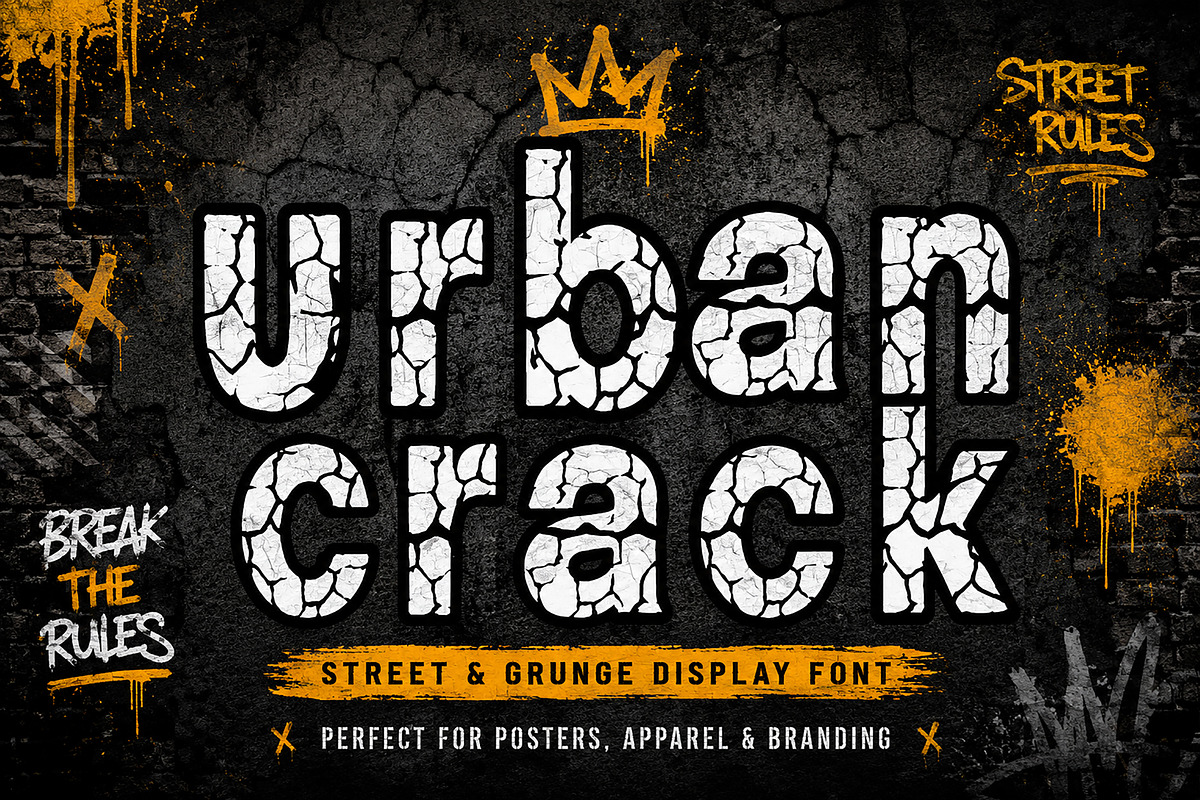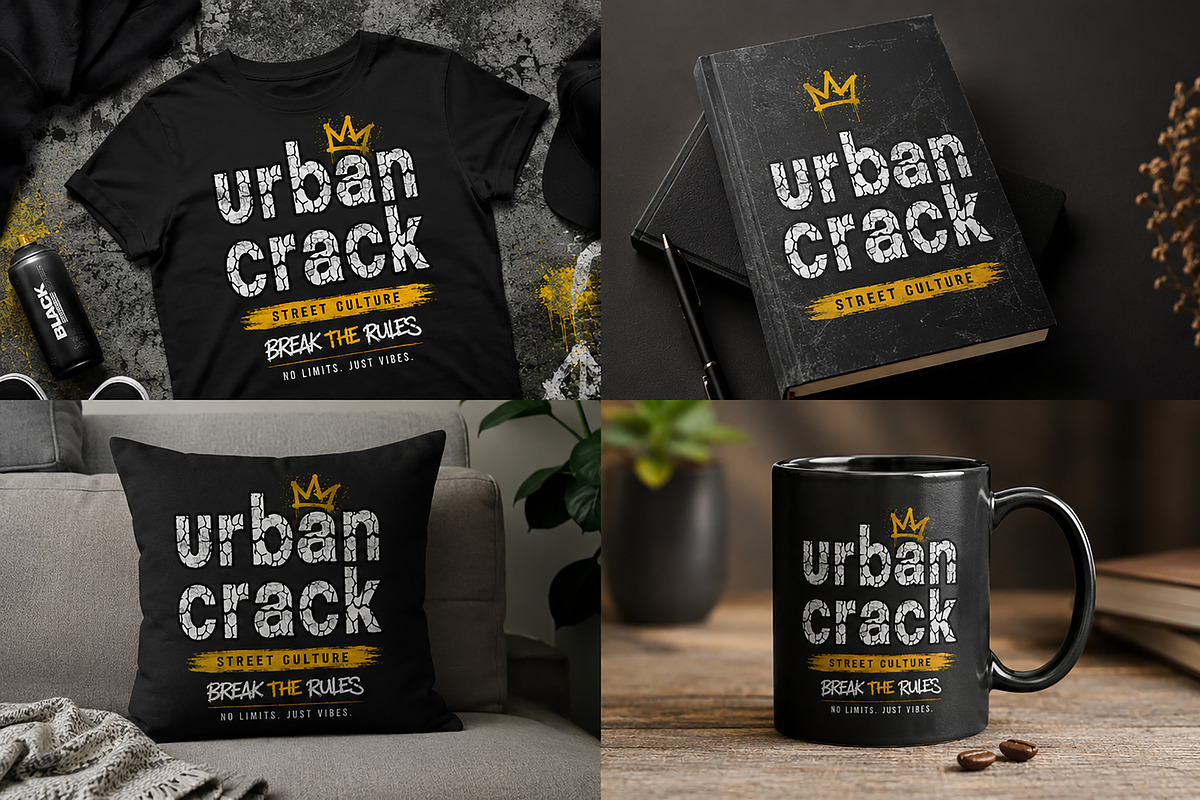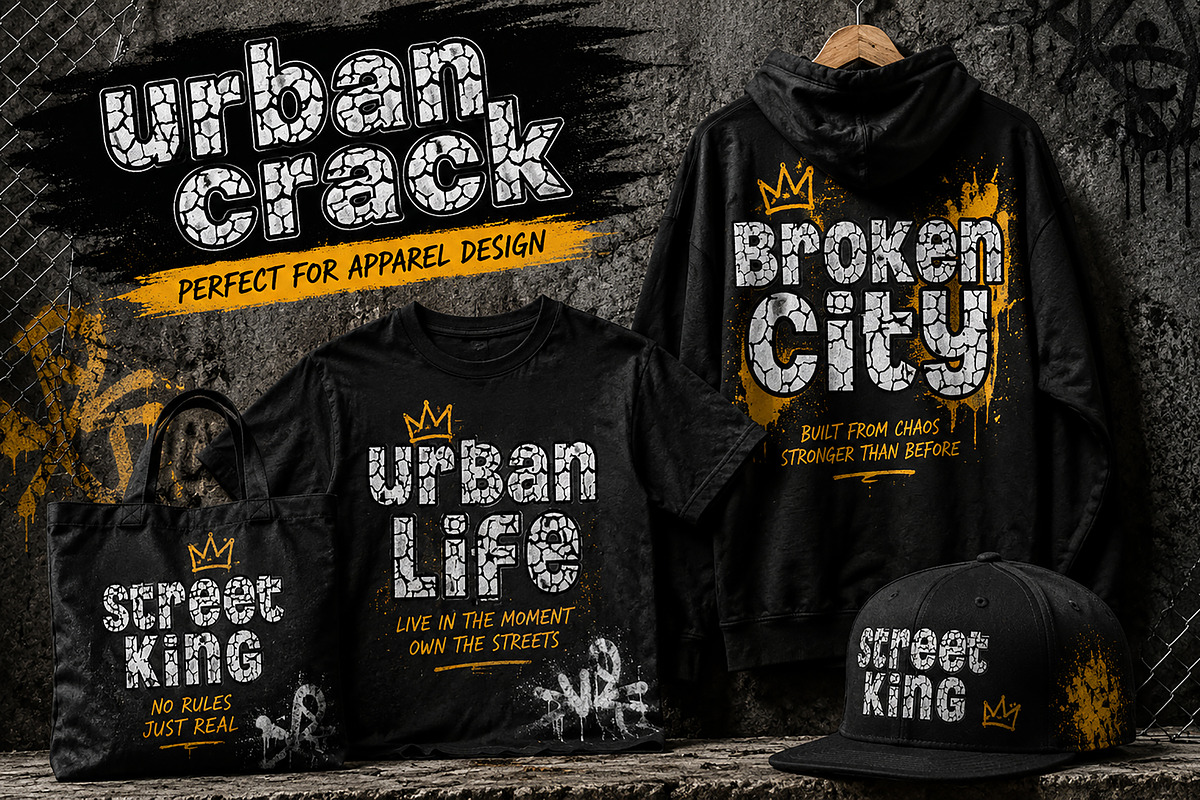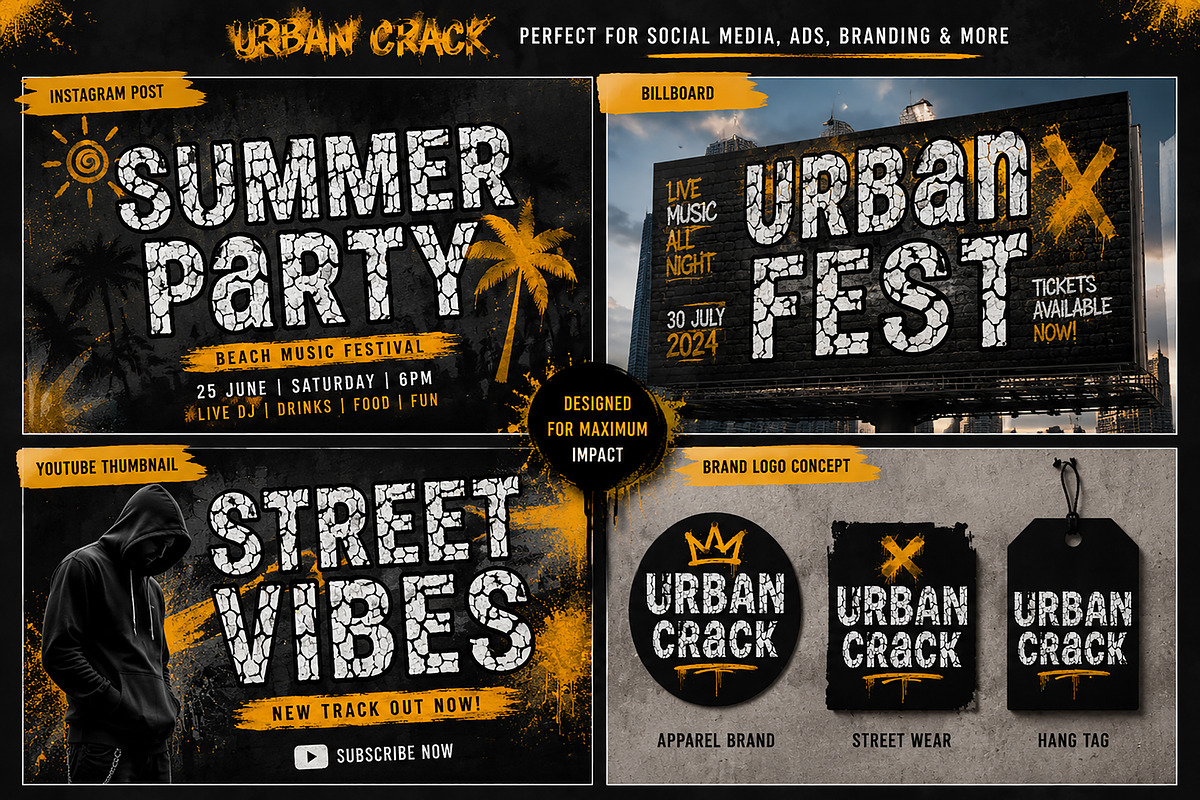
Urban Crack
Urban Crack – Street & Grunge Display Font
URBAN CRACK is a bold street-inspired display font featuring a unique cracked texture that brings raw urban energy to every design. Designed for creators who want to make a strong visual statement, this font combines grunge aesthetics, distressed details, and modern street culture into one powerful typeface.
Whether you're creating posters, apparel graphics, branding projects, social media content, album covers, YouTube thumbnails, event promotions, or urban-themed merchandise, Urban Crack delivers an eye-catching look that instantly grabs attention.
The distinctive cracked texture gives your typography a rugged, weathered appearance, making it perfect for projects that need a bold, rebellious, and authentic street-style vibe.
• Uppercase Letters
• Lowercase Letters
• Numbers & Punctuation
• Multilingual Support
PERFECT FOR:
• Streetwear & Apparel Designs
• Urban Branding
• Music Festival Posters
• Event Flyers
• Album Covers
• YouTube Thumbnails
• Social Media Graphics
• Logos & Branding
• Merchandise Design
• Packaging Projects
• Gaming Graphics
• Advertising Campaigns
Bring the spirit of the streets into your next project with Urban Crack — a bold, distressed display font built to stand out.